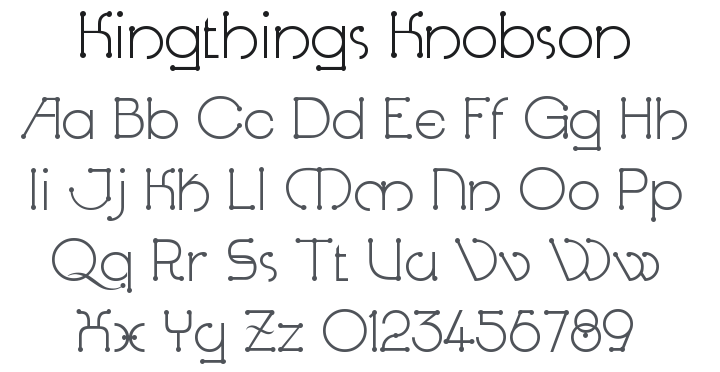
Kingthings Knobson Font
About Kingthings Knobson
Having made Spirogyra, a decorative font, I found I liked the way the lower case set as text, so I made separate capitals to go with them, and Voila!, we have Kingthings Knobson... (if we're not very careful, Oh, too late - fonts spontaneously generate you know, like Elephants.